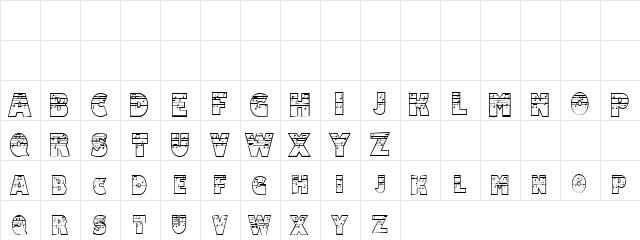
Kiffe Watx Regular
Design Context for Kiffe Watx Typeface
Kiffe Watx is a composed and adaptable typeface that performs quietly and consistently across a wide range of design contexts.